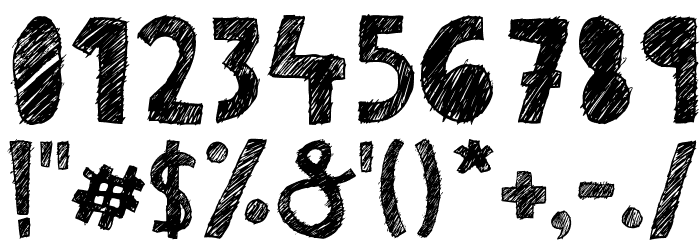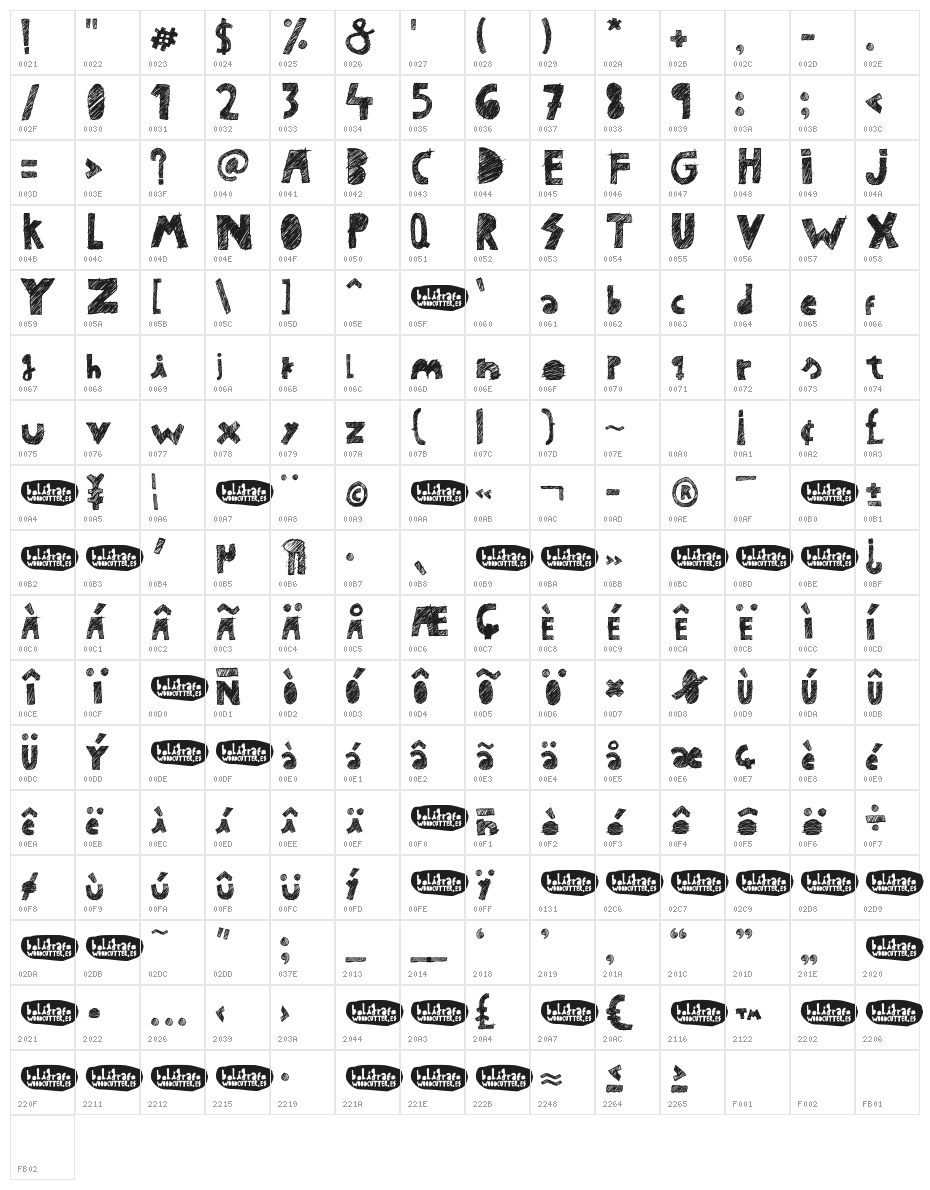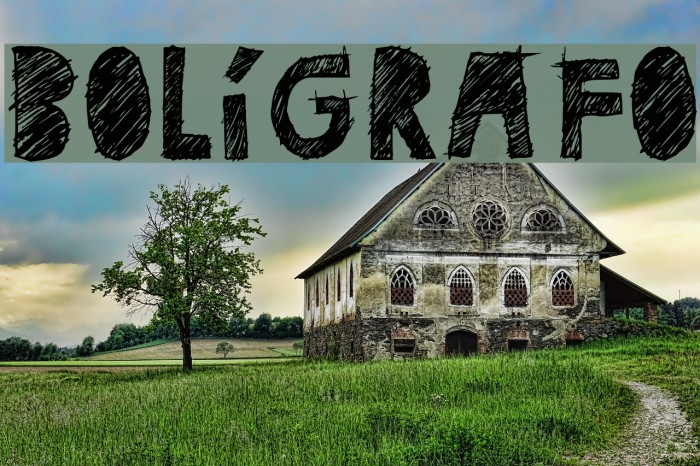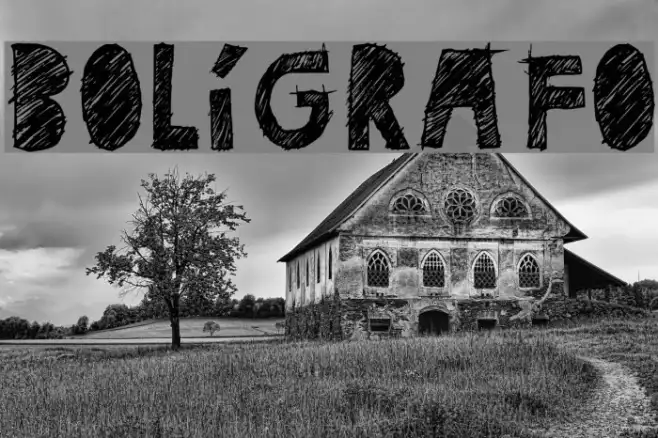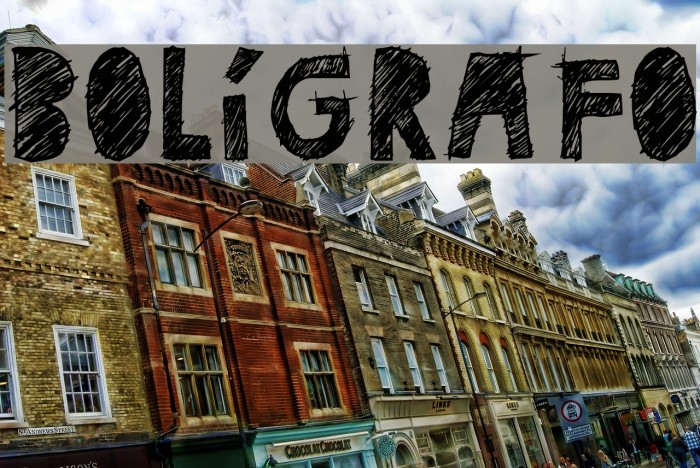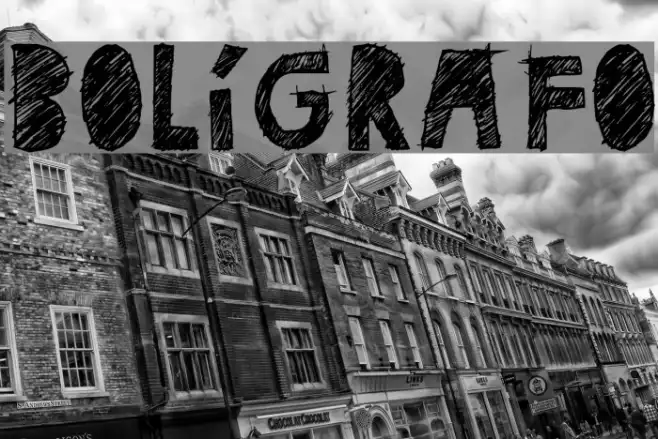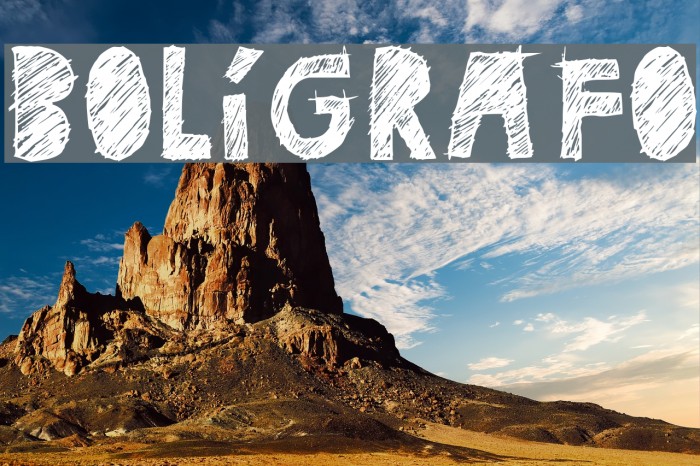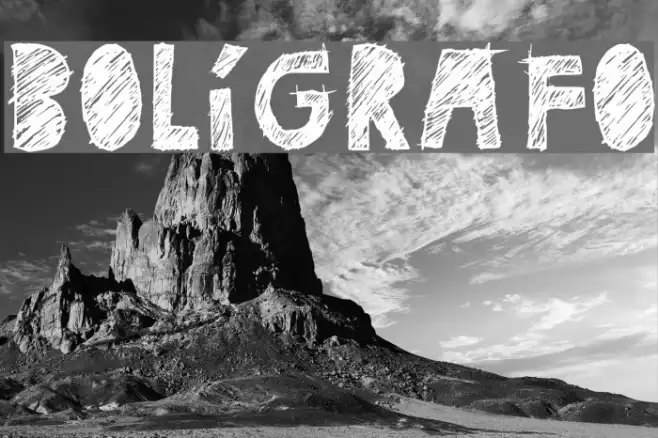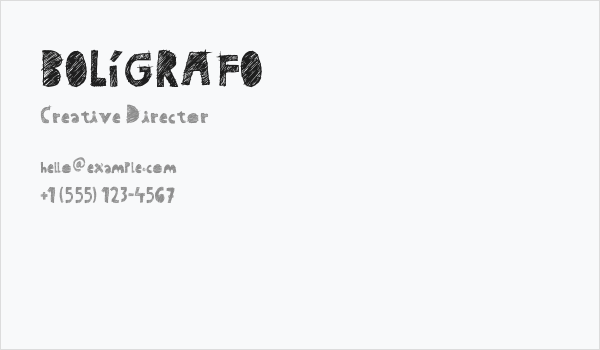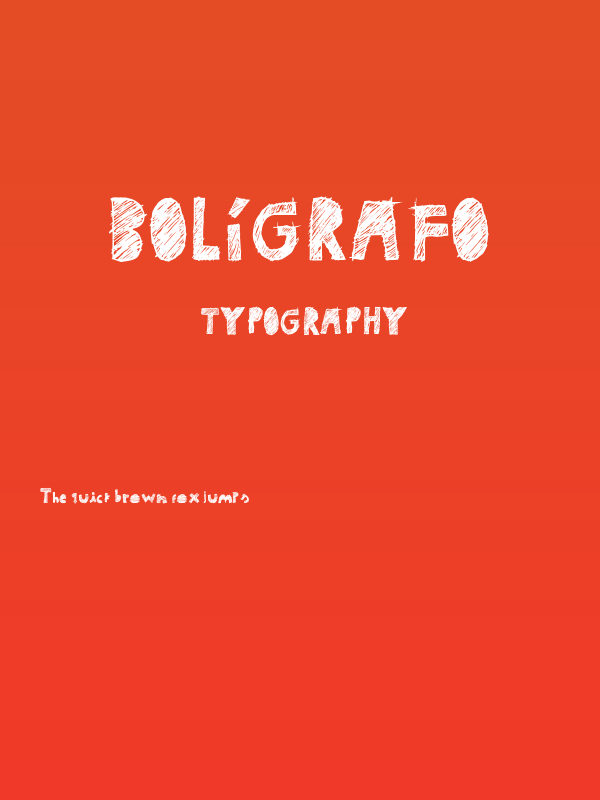
BOLÍGRAFO Font
BOLÍGRAFO Description
This font features a bold, hand-drawn style with a textured, sketch-like appearance. Each character is filled with a dense, cross-hatched pattern, giving it a dynamic and artistic feel. The uppercase and lowercase letters maintain a consistent width, while the numbers and special characters follow the same design principles. The irregular edges and playful forms suggest a casual, creative vibe, making it ideal for projects that require a personal touch. The font's unique style is both eye-catching and versatile, suitable for various creative applications.
| Proposed Projects | Ideal for artistic projects, children's books, posters, and creative branding. |